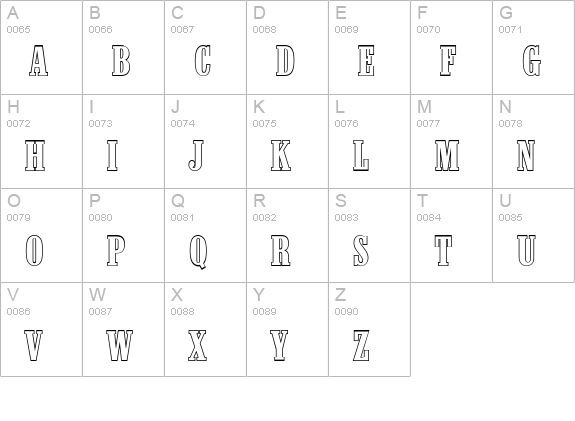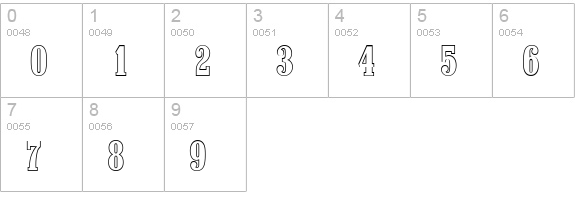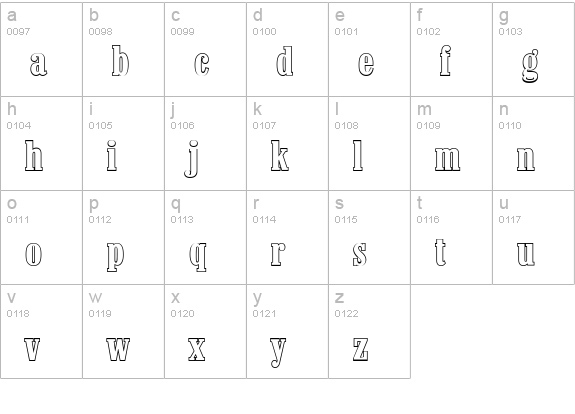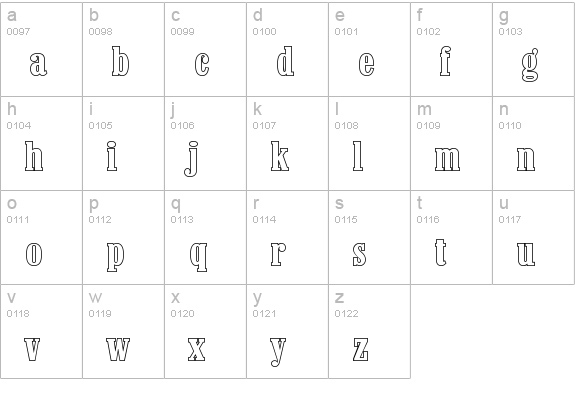
ColonelOutline-Bold Font Details
ColonelOutline-Bold is a strong, high-contrast variant in the ColonelOutline typeface family \xE2\x80\x94 well suited to headlines, attention-grabbing titles, and strong calls-to-action.
ColonelOutline-Bold font is a bold and commanding typeface designed to make a statement. Its strong lines and bold strokes exude confidence and authority, making it the perfect choice for headlines, titles, and other impactful design projects. The sleek and modern look of ColonelOutline-Bold font adds a touch of sophistication to any project, while still maintaining a sense of strength and boldness. What sets ColonelOutline-Bold font apart is its versatility - it can be used in a variety of design applications, from print materials to digital media. Whether you're creating posters, banners, logos, or website headers, ColonelOutline-Bold font will help your message stand out and make a lasting impression. Best of all, ColonelOutline-Bold font is available for free download at FontsMarket.com. This means you can easily access this powerful and eye-catching font without breaking the bank. So why wait? Download ColonelOutline-Bold font today and take your design projects to the next level.